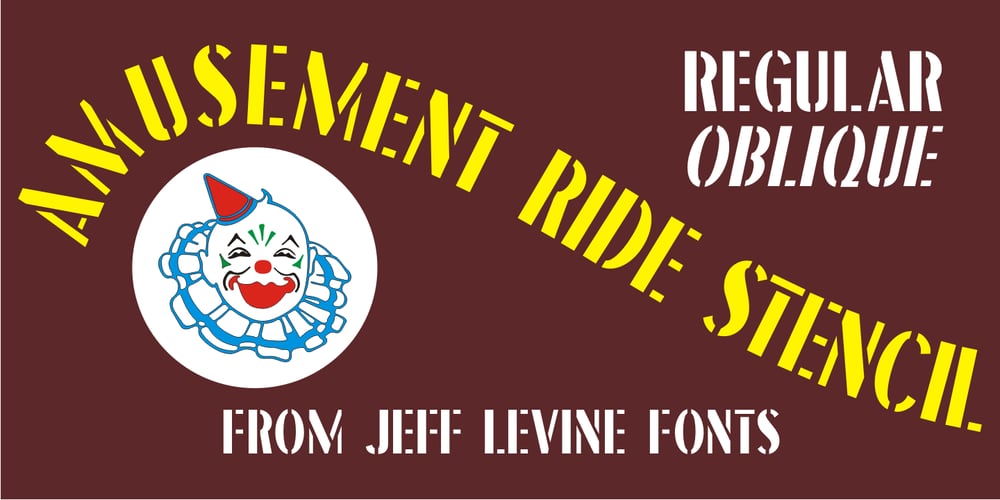
Amusement Ride Stencil JNL Font Family was designed by Jeff Levine and published by Jeff Levine. Amusement Ride Stencil JNL contains 2 styles and family package options. Amusement Ride Stencil JNL is based on a hand-cut paper stencil advising the riders to “Hold Onto Your Hats – Don’t Stand Up – Let’s Go Again!” Available in both regular and oblique versions.